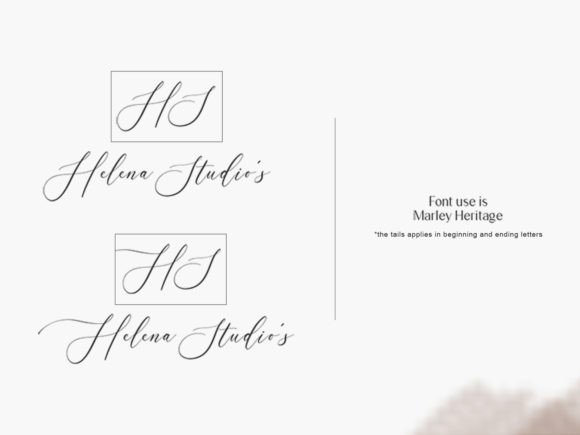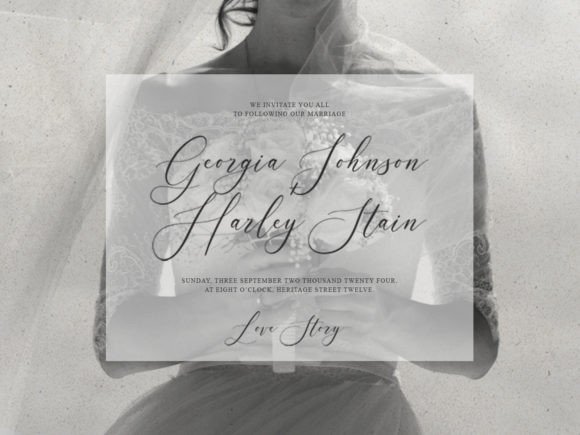
Marley Heritage Font
Marley Heritage is a modern calligraphy vintage script. This is a beautiful font with thin line strokes. It’s perfect for calligraphy logos for branding, wedding invitations, elegant websites, gifts, social media posts, and more.